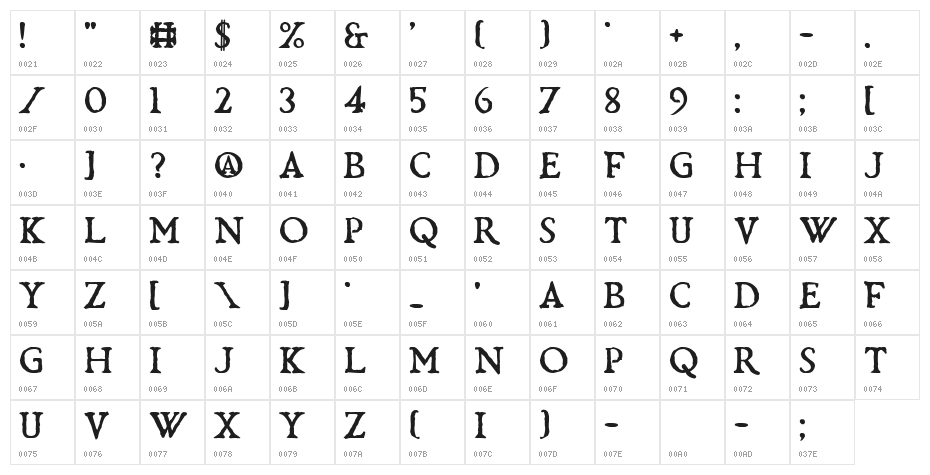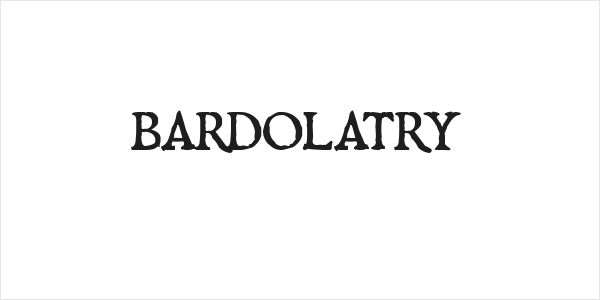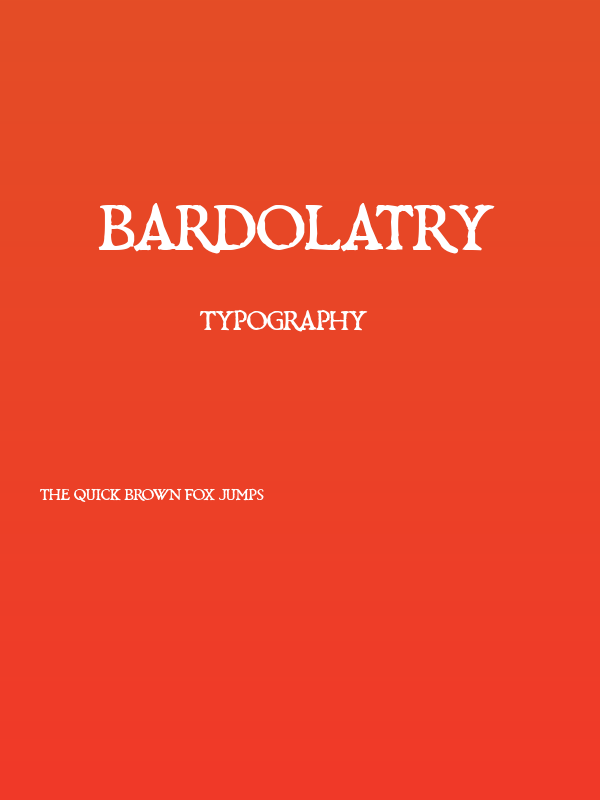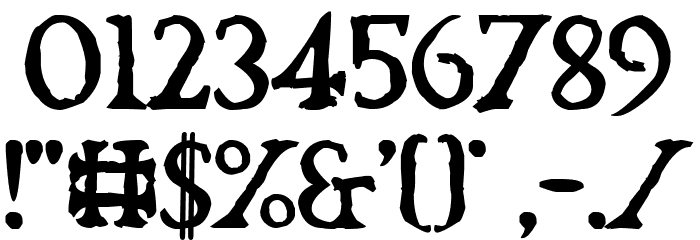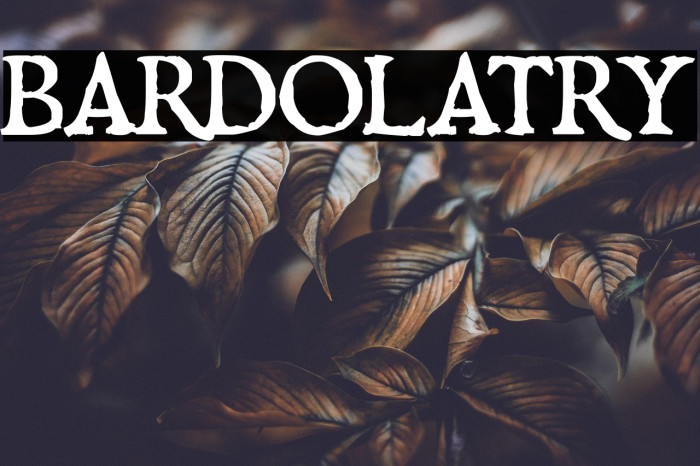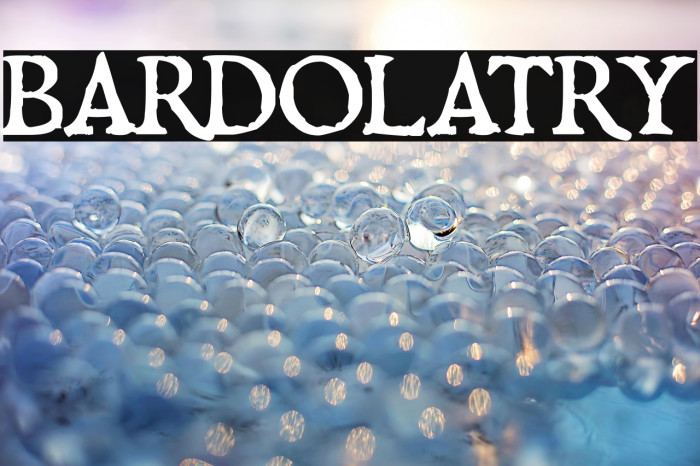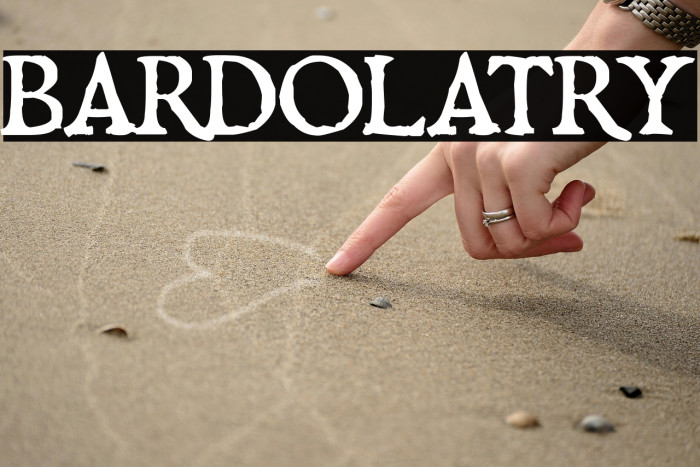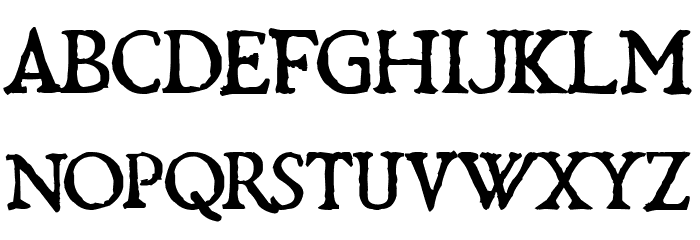
Bardolatry Font
Bardolatry Description
This font features a bold and dramatic style with a distinct vintage flair. The characters are characterized by their thick, uneven strokes and slightly distressed appearance, giving them a hand-crafted look. The uppercase letters are particularly striking, with pronounced serifs and a slightly rough texture that adds to the overall rustic charm. The numerals and special characters maintain this aesthetic, ensuring consistency across all glyphs. This font's unique style makes it ideal for projects that require a touch of historical or theatrical elegance.
| Use Case | Headlines, Logos, Decorative text |
| Proposed Projects | Ideal for theatrical posters, vintage-themed branding, historical event invitations, and decorative signage. |